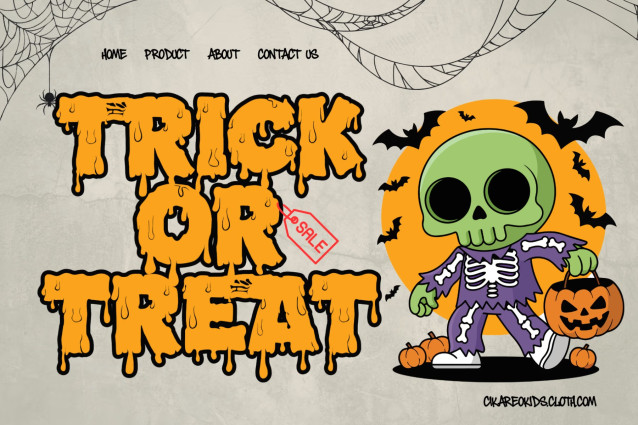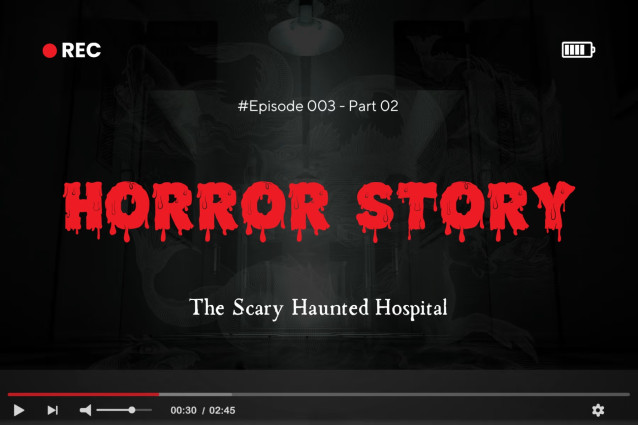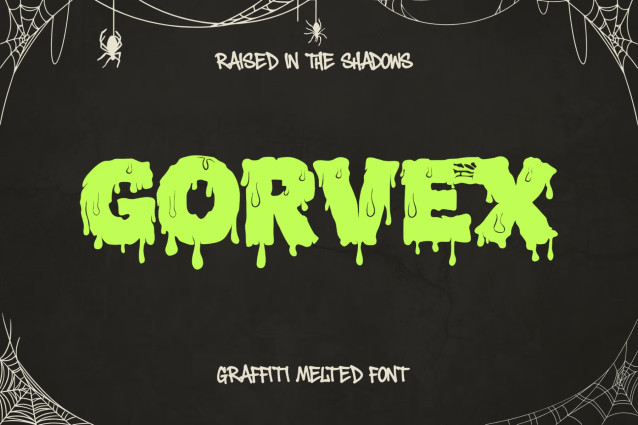
Gorvex is a unique Halloween graffiti font created for designers who want to combine spooky aesthetics, melting typography, decorative lettering, and modern street art energy. Inspired by creepy Halloween artwork, dripping lettering, dark urban graphics, and expressive graffiti culture, Gorvex brings a distinctive horror-inspired personality to every design. This melting graffiti font is perfect for Halloween posters, spooky branding, apparel graphics, social media artwork, horror-themed merchandise, event promotions, and creative typography projects.
The distinctive melting structure of Gorvex gives this Halloween font an instantly recognizable appearance. Its decorative letterforms create the visual impression of letters slowly melting, dripping, and transforming, making it ideal for designs that require a creepy yet fashionable atmosphere. The combination of melting typography and graffiti style gives Gorvex a contemporary urban character that works beautifully for streetwear, music artwork, Halloween campaigns, and alternative fashion branding.
Gorvex is more than a traditional Halloween typeface. This decorative graffiti font combines spooky visual language with bold street-inspired typography, giving designers a flexible tool for creating memorable artwork. Whether you are designing a haunted house poster, Halloween party flyer, horror merchandise, dark streetwear collection, or social media campaign, Gorvex provides the strong visual identity needed to capture attention.
The bold shapes and melting details make this spooky graffiti font particularly effective when used as a headline or display typeface. Large typography allows the dripping and melting characteristics to become a central part of the composition, creating a dramatic visual effect without requiring complicated graphic elements. Gorvex can therefore become the hero element of a Halloween design while still leaving enough space for supporting illustrations, textures, characters, or decorative artwork.